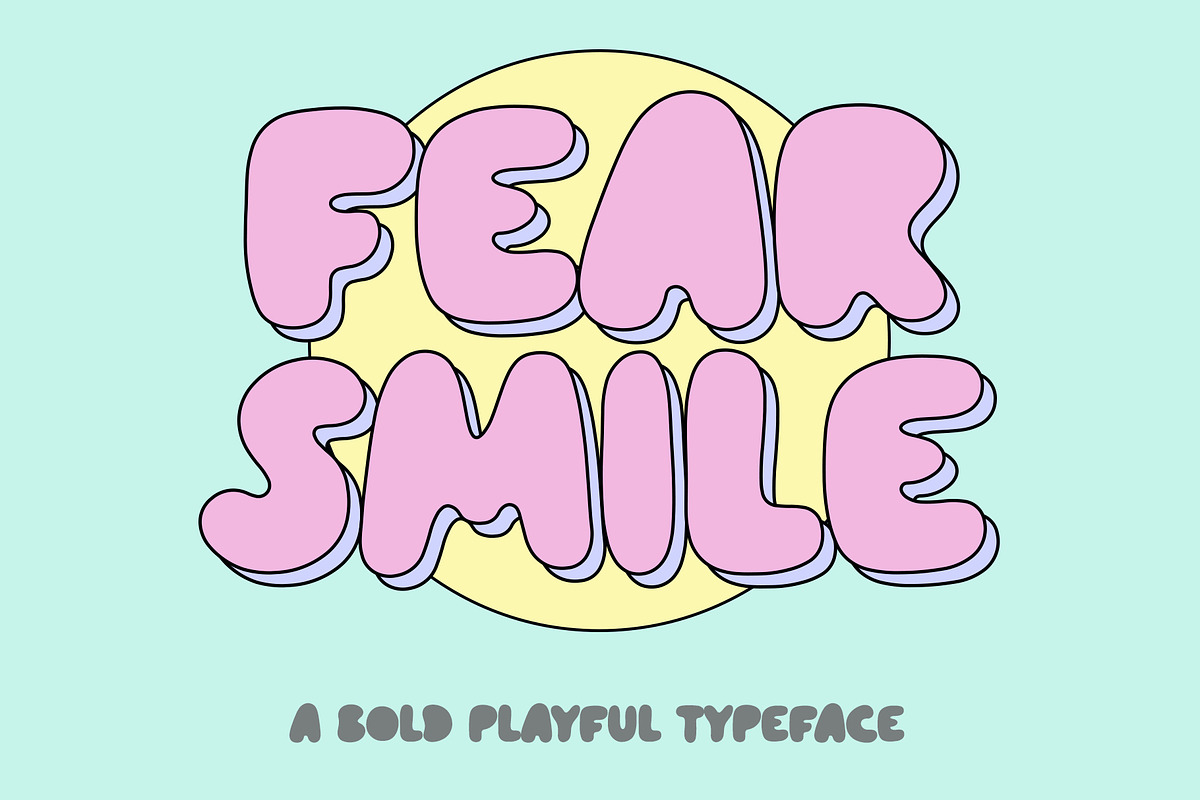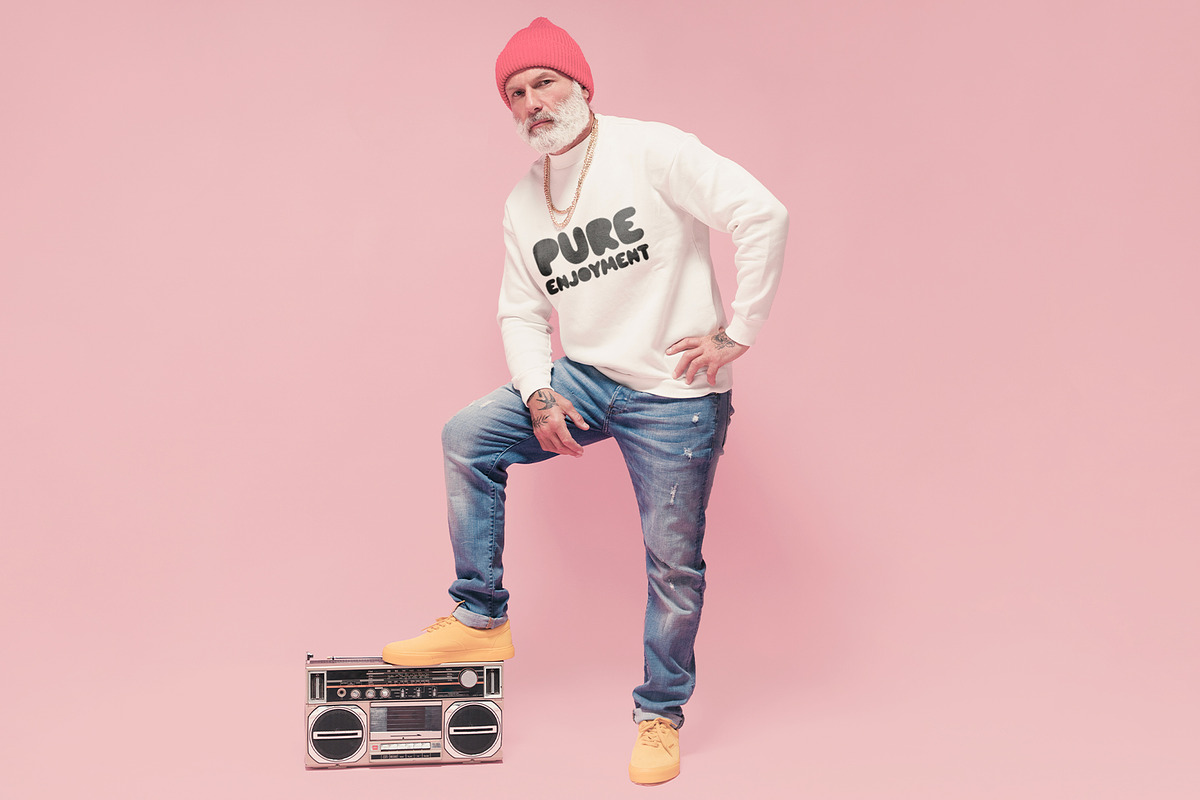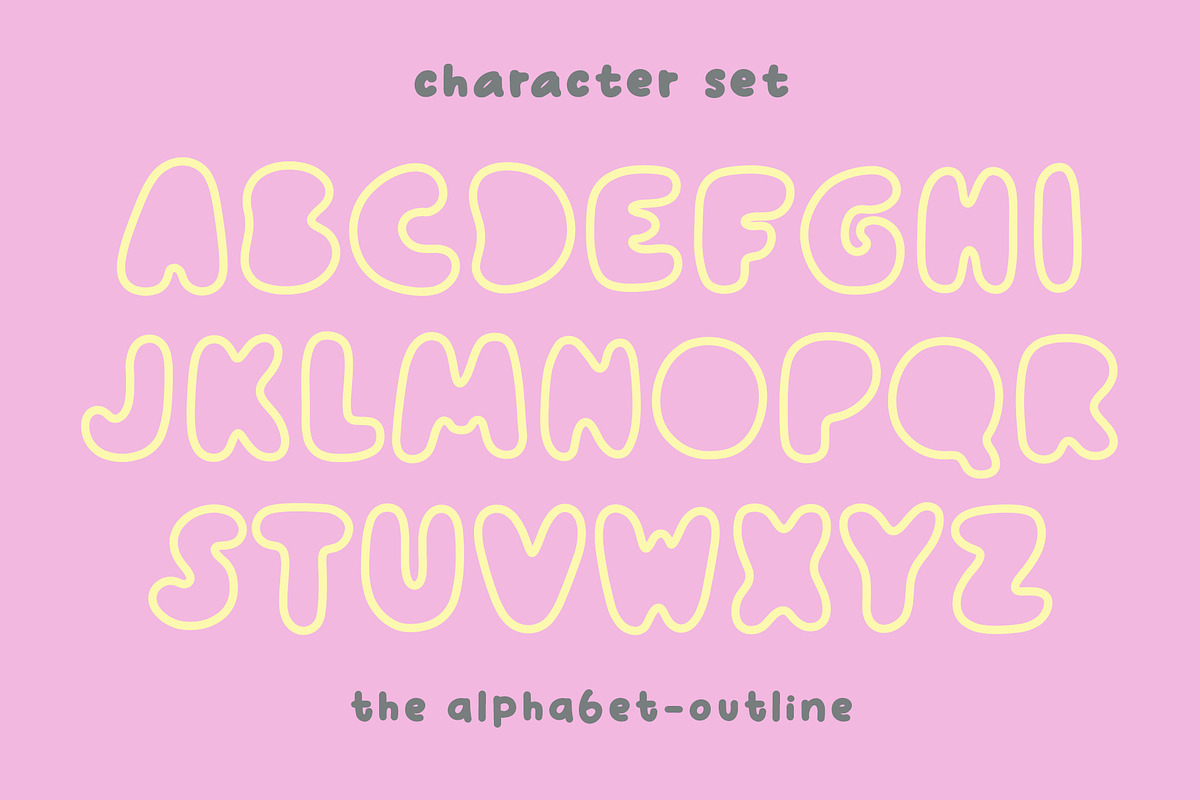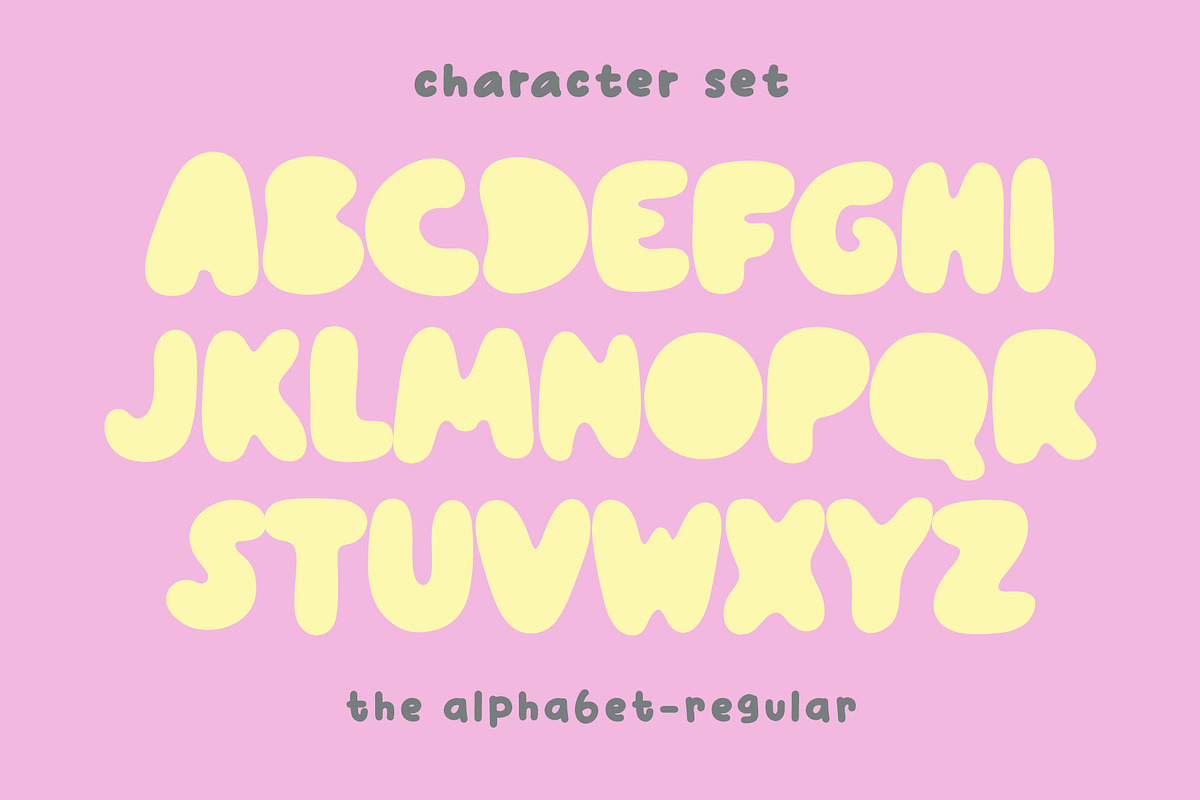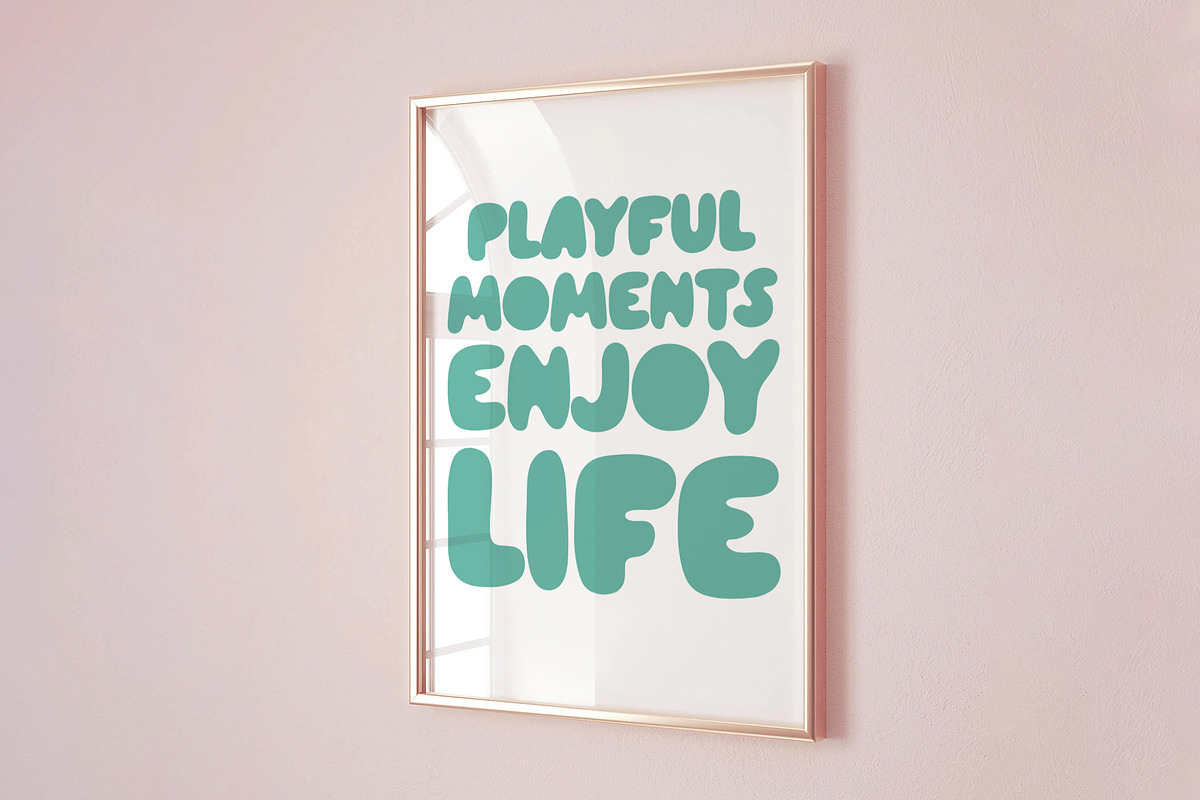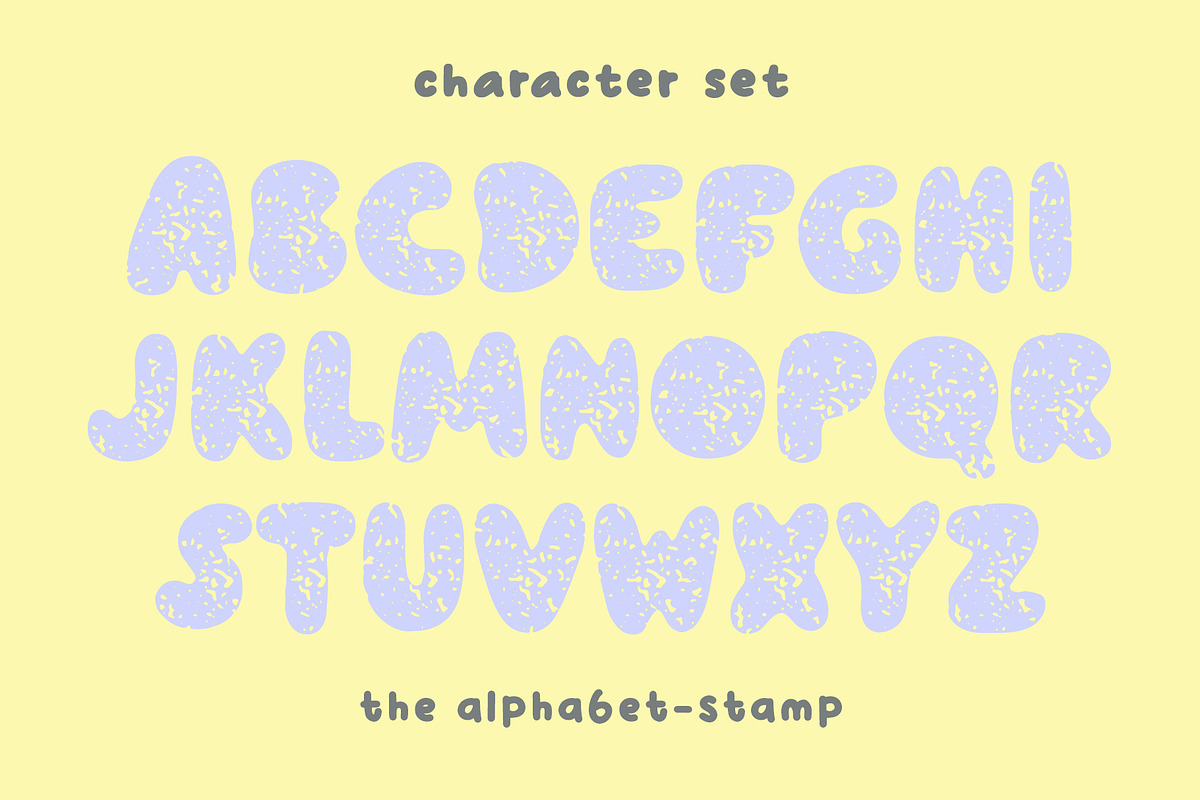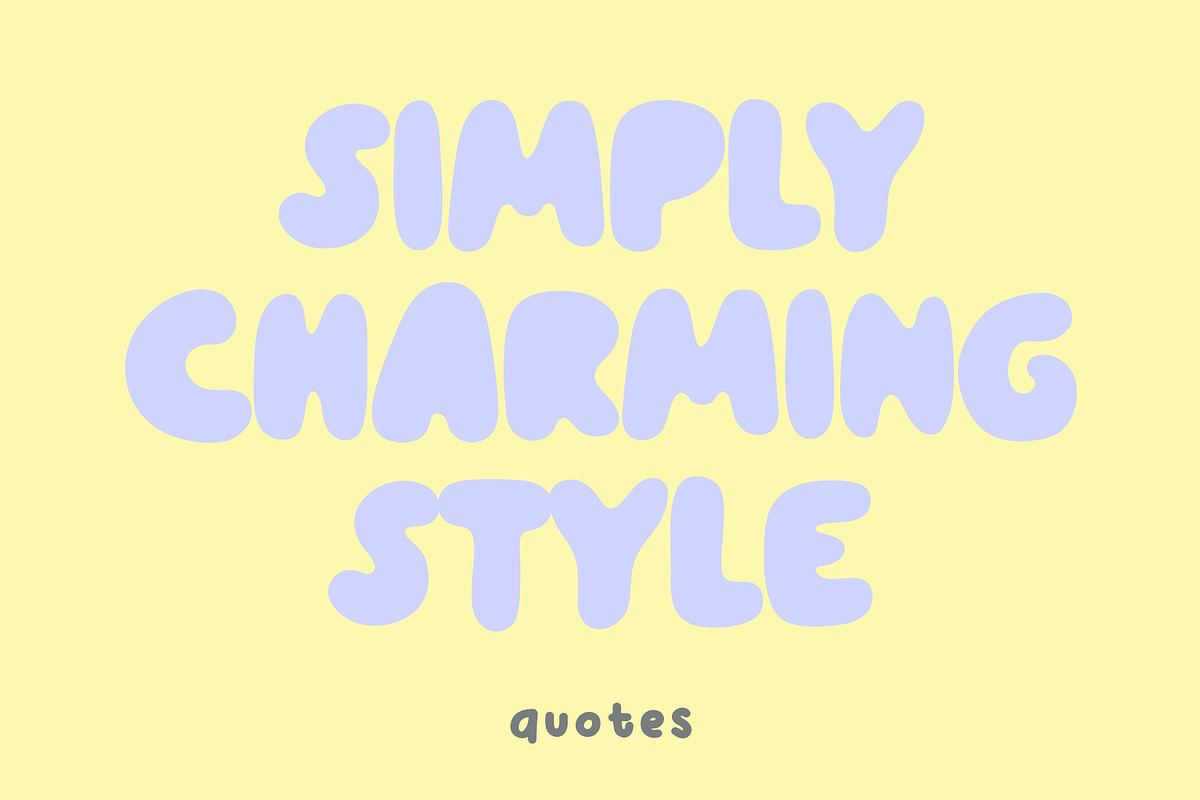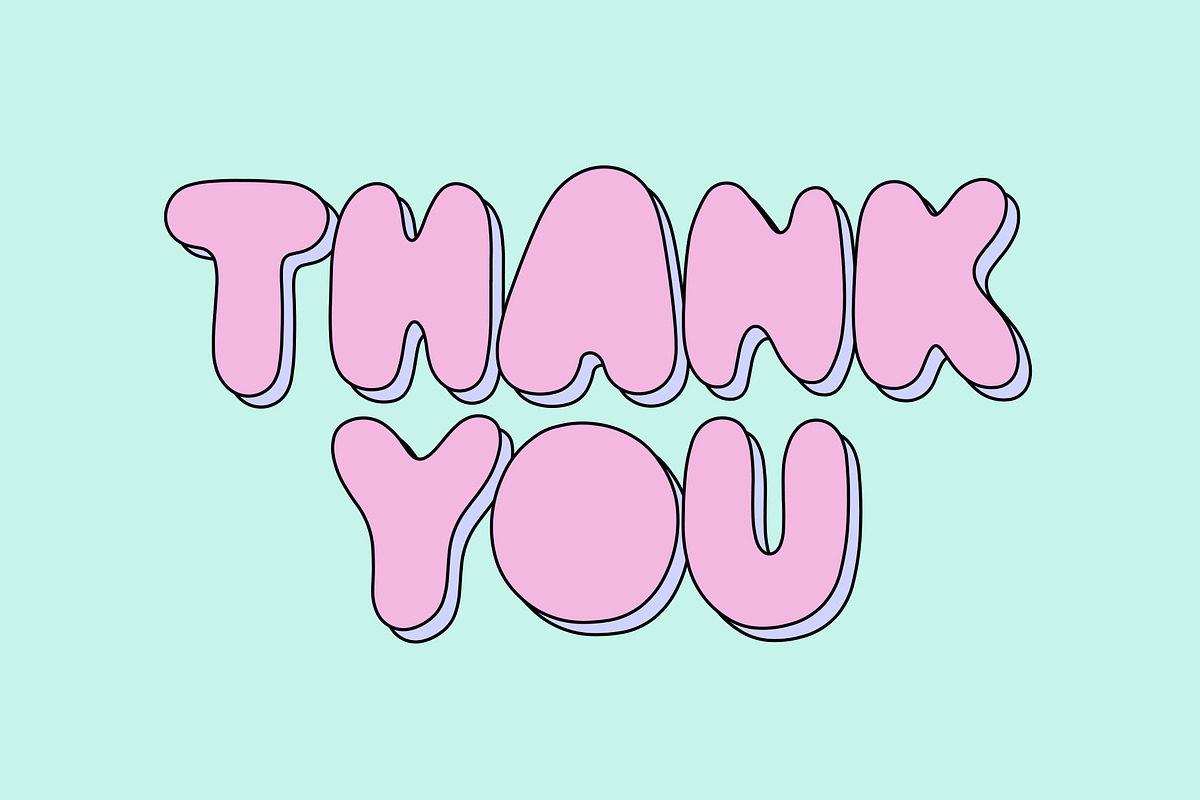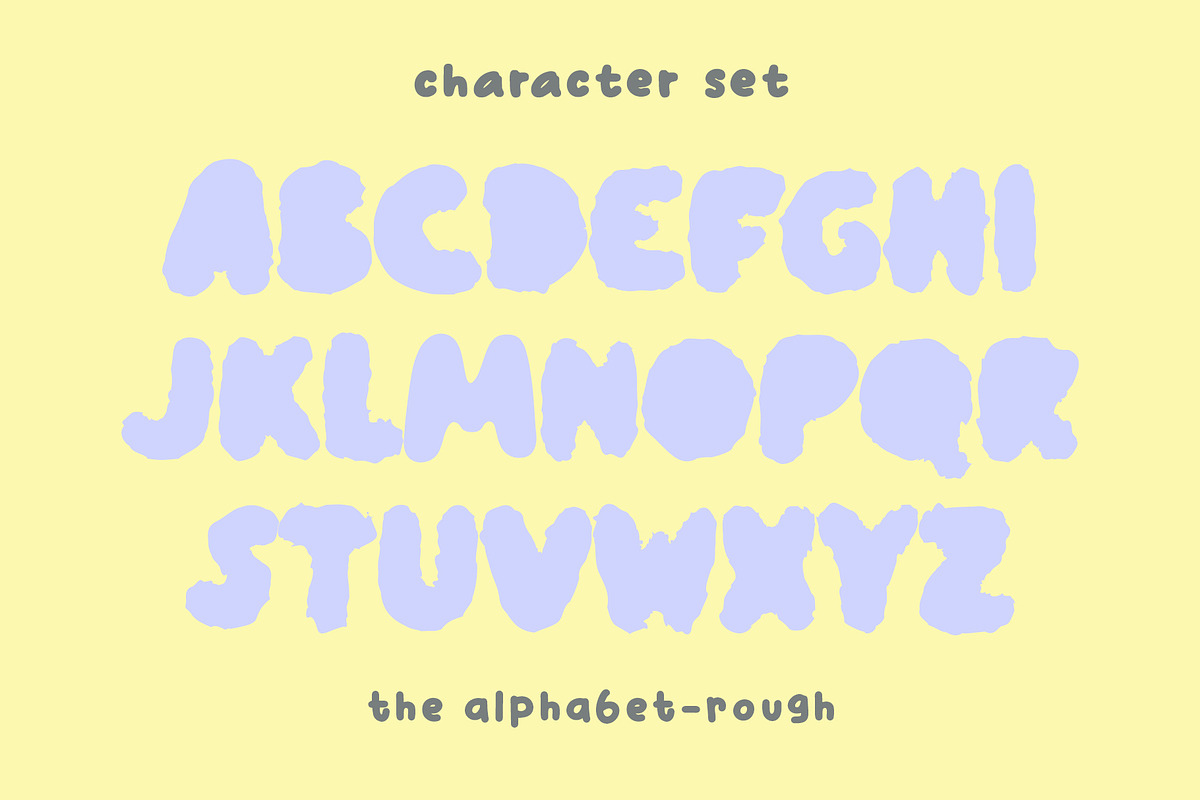
Fear Smile - Bold Playful Font
Fear Smile is an intriguing Sans Serif Font that exudes boldness and modernity. With its captivating design, this font product makes a powerful statement in any creative project. This typeface available in SVG format, compatible with advanced tools such as Cricut and Glowforge, and for use in Procreate. The Bold Style of Fear Smile adds a touch of strength and confidence to the characters, making it an ideal choice for headlines, logos, and attention-grabbing text.